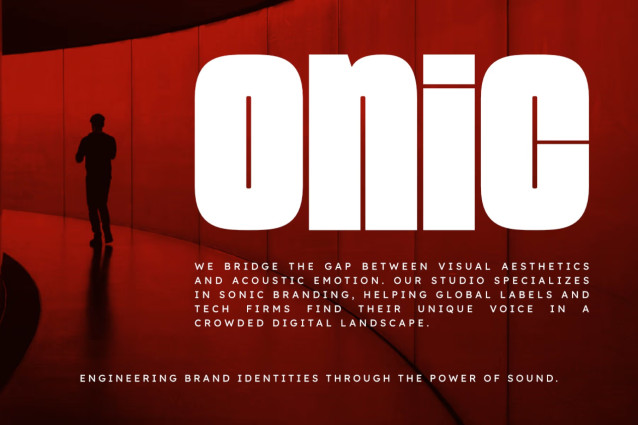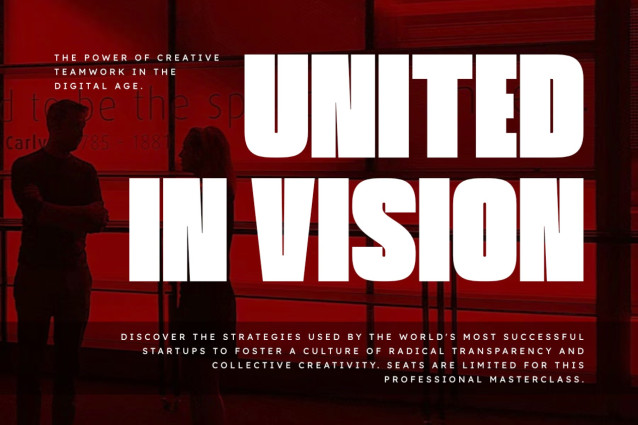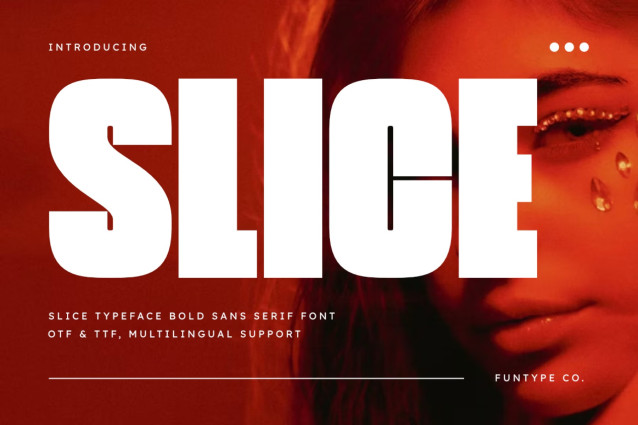
Slice Sans Serif Font
Slice Sans Serif Font is a bold and powerful sans serif font designed for high-impact and commanding typography. With its heavy structure and clean geometric lines, this font is perfect for strong headlines, professional logos, industrial branding, and high-impact advertising posters. Its confident design gives your visuals a striking, professional, and modern look. Provided in OTF and TTF formats for maximum compatibility across all design platforms.